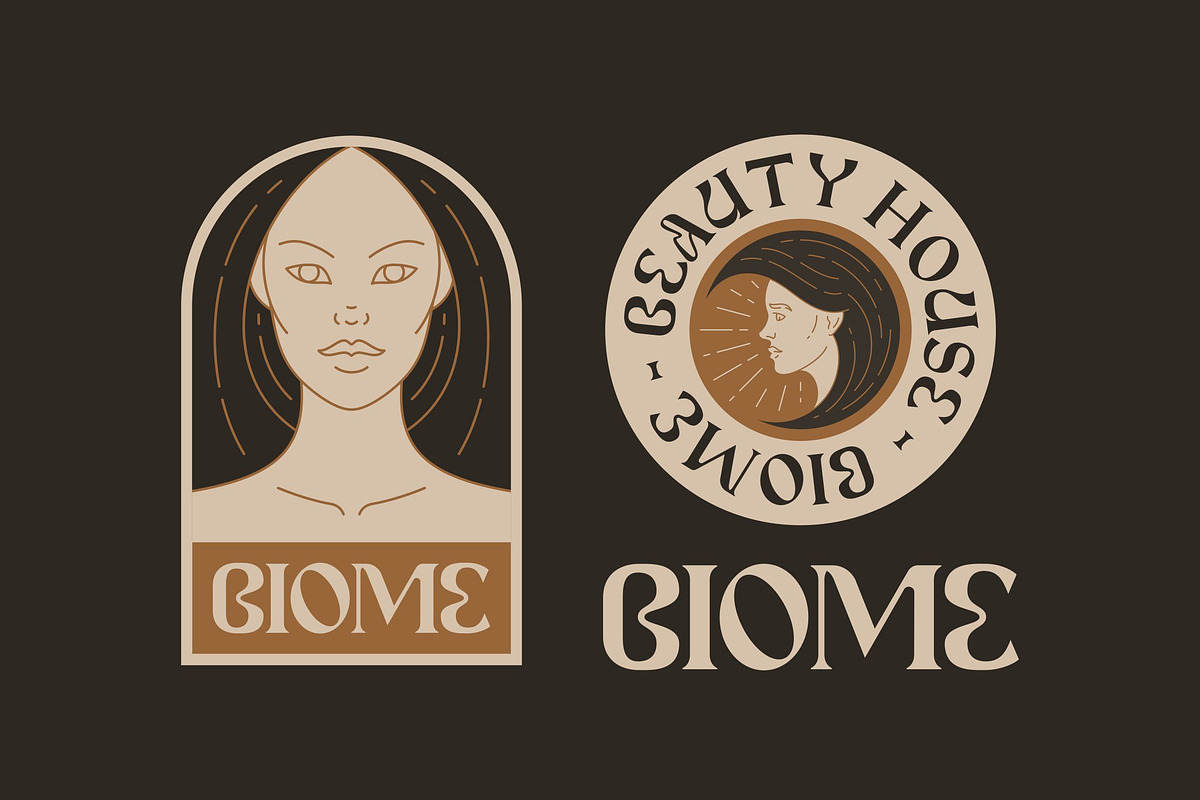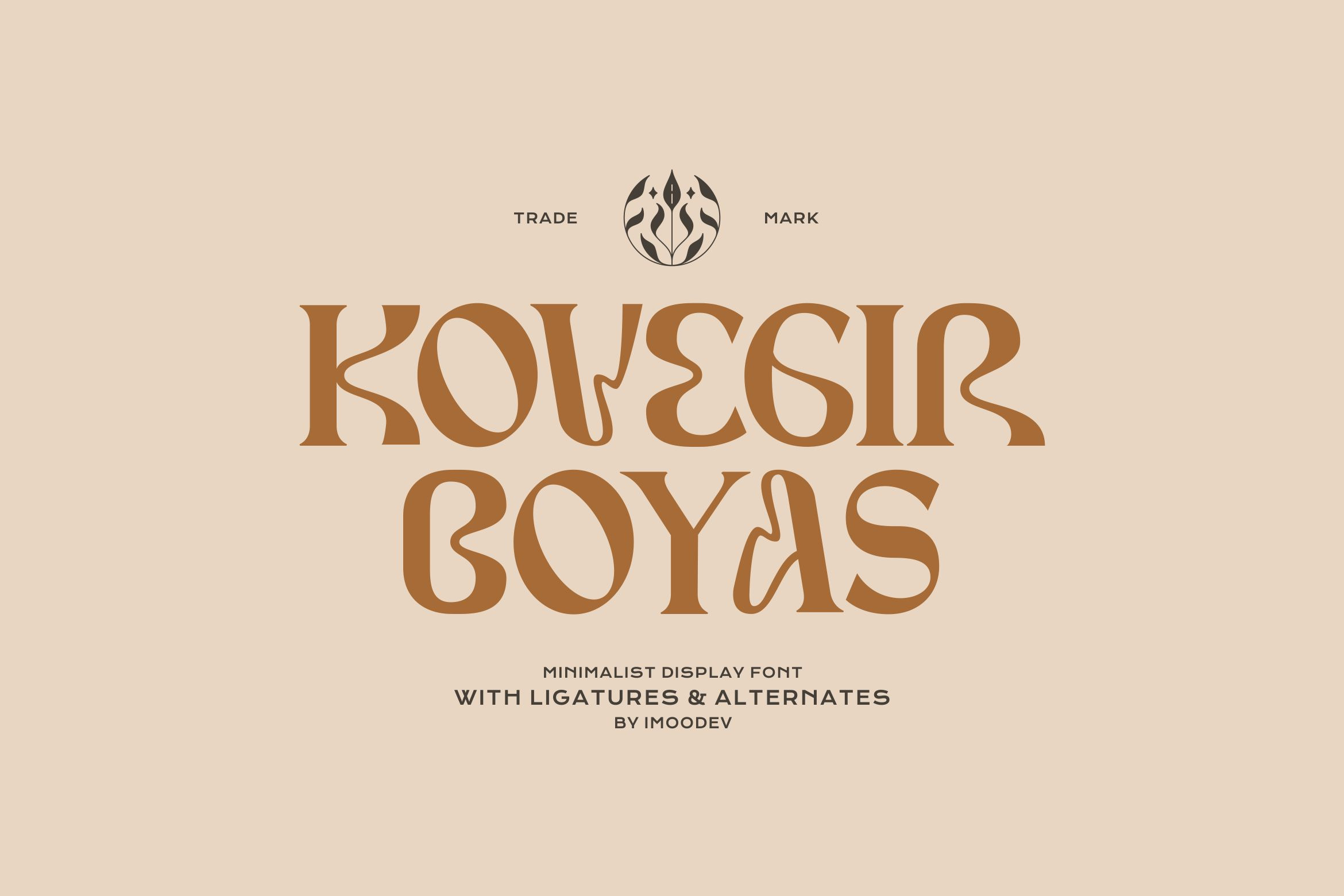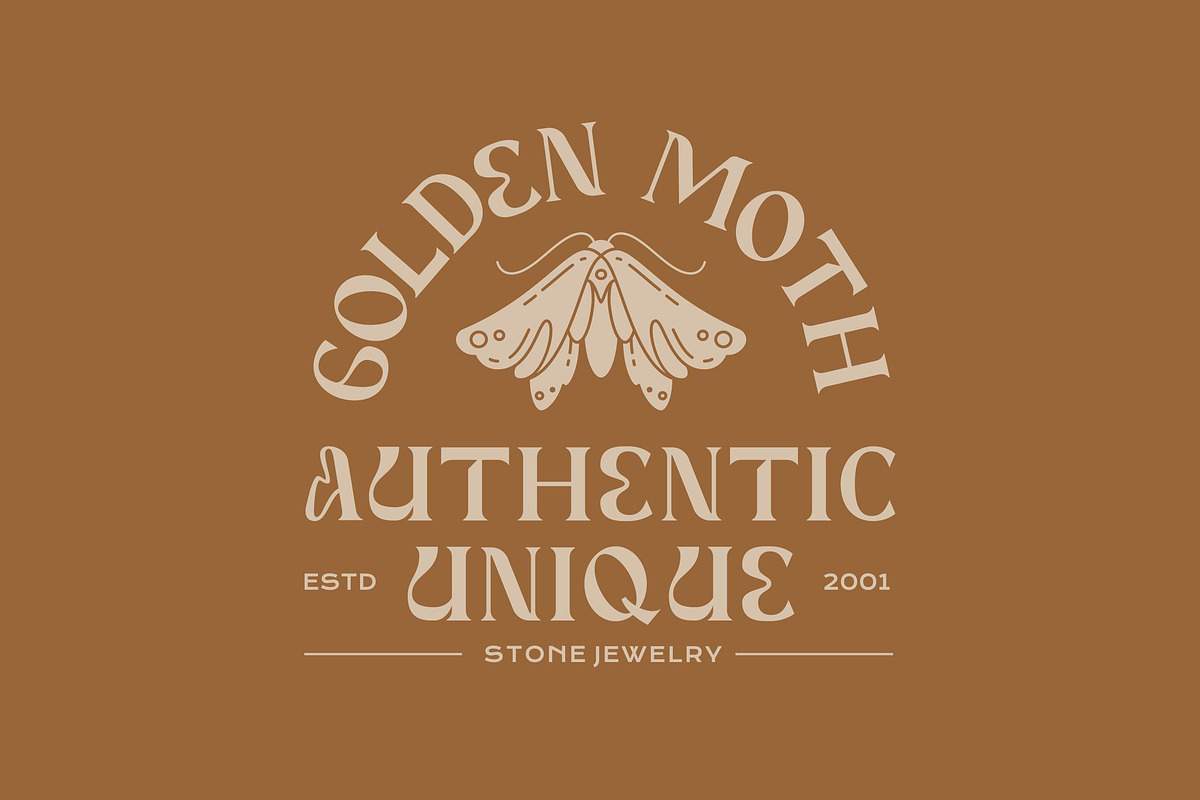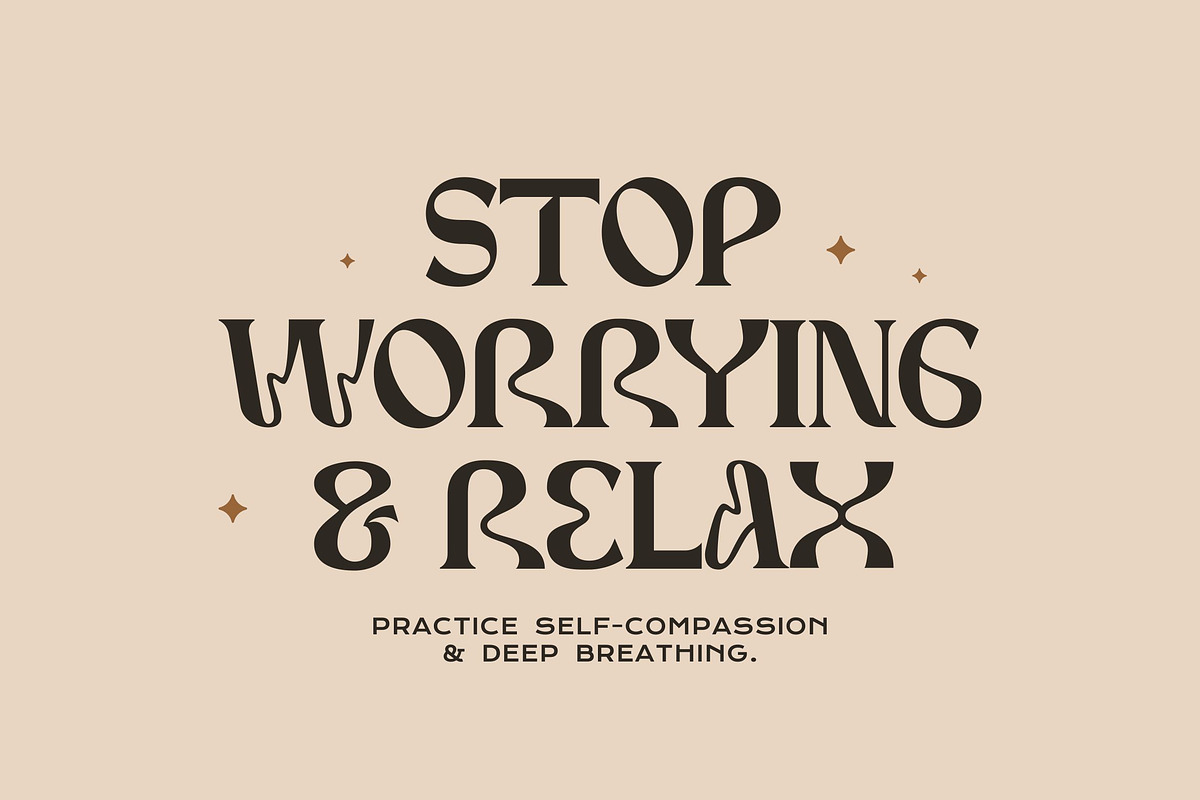
Kovegir Boyas - Mystical Luxury Font
Introducing kovegir boyas, a uniquely elegant and mystical display font that effortlessly blends vintage charm with a modern, free-spirited aesthetic. This typeface is defined by its graceful, flowing letterforms and distinctive character shapes, drawing inspiration from the elegance of art nouveau and the soulful vibe of 70s typography.
Each letter is a work of art, featuring high contrast strokes and beautifully curved lines that create a captivating rhythm. Standout glyphs, stylized unique wavy, and the gracefully curved, give the font a memorable and exclusive personality.
Perfect for boutique branding, beauty labels, lifestyle products, wellness campaigns, and creative startups, this font elevates messaging with sophistication and charm.